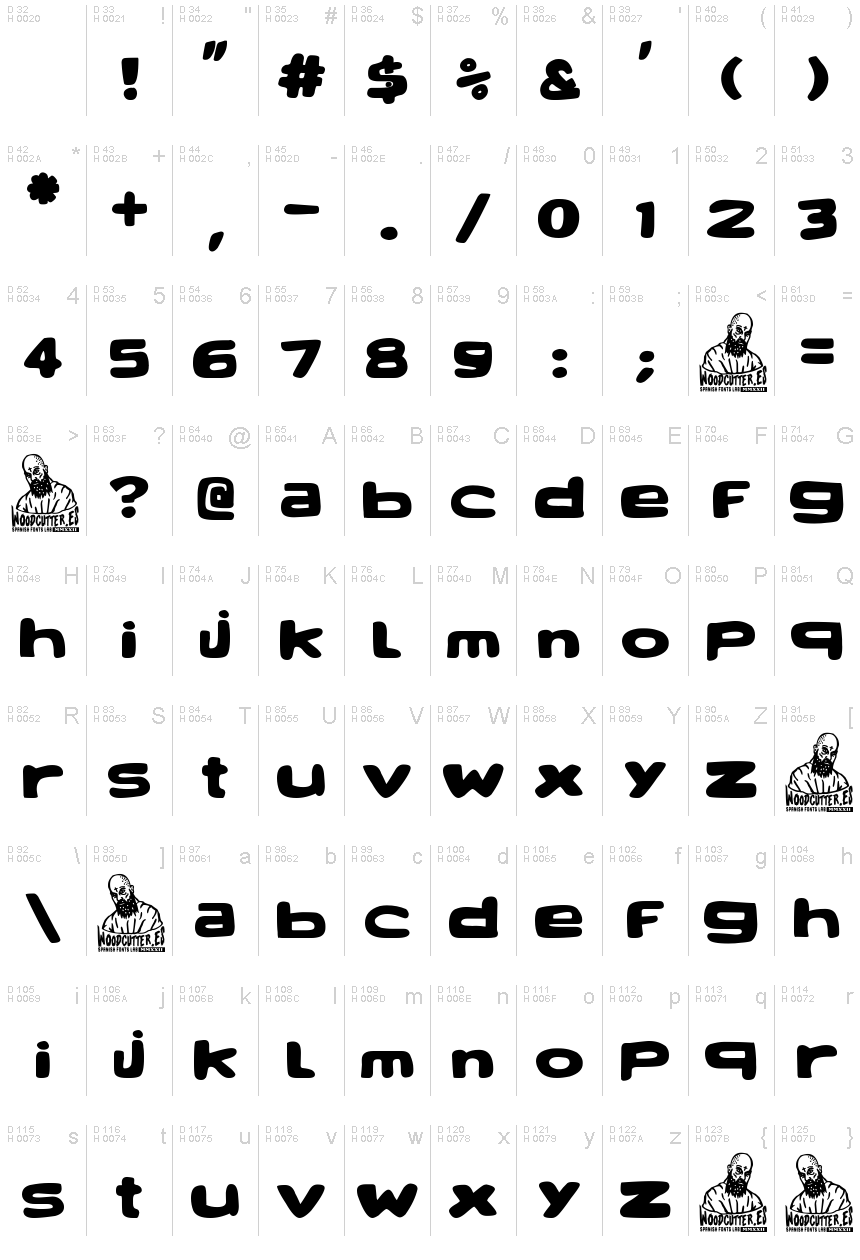
Bambino Piccolino
Bambino Piccolino by Woodcutter is a bold, expanded display font that exudes a playful, cartoonish charm. Its exaggerated forms and whimsical curves create a sense of fun and spontaneity, making it perfect for designs that aim to captivate and entertain. The bold weight ensures it stands out with confidence, while the expanded width gives each letter ample breathing room, enhancing readability without sacrificing style.
Ideal for children's books, playful branding projects, or eye-catching posters, Bambino Piccolino brings an element of joy and liveliness to any design. Whether you're crafting vibrant party invitations or quirky social media graphics, this font adds an irresistibly cheerful touch that draws in audiences with its unique personality.